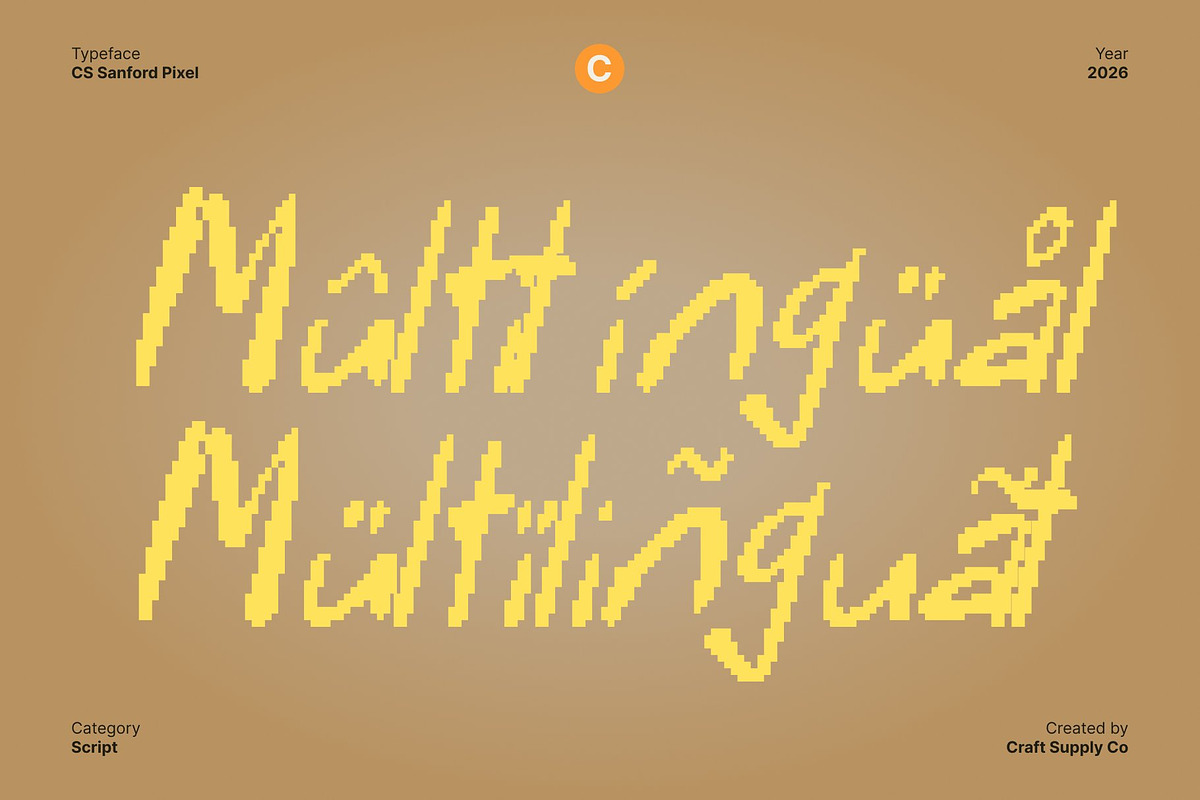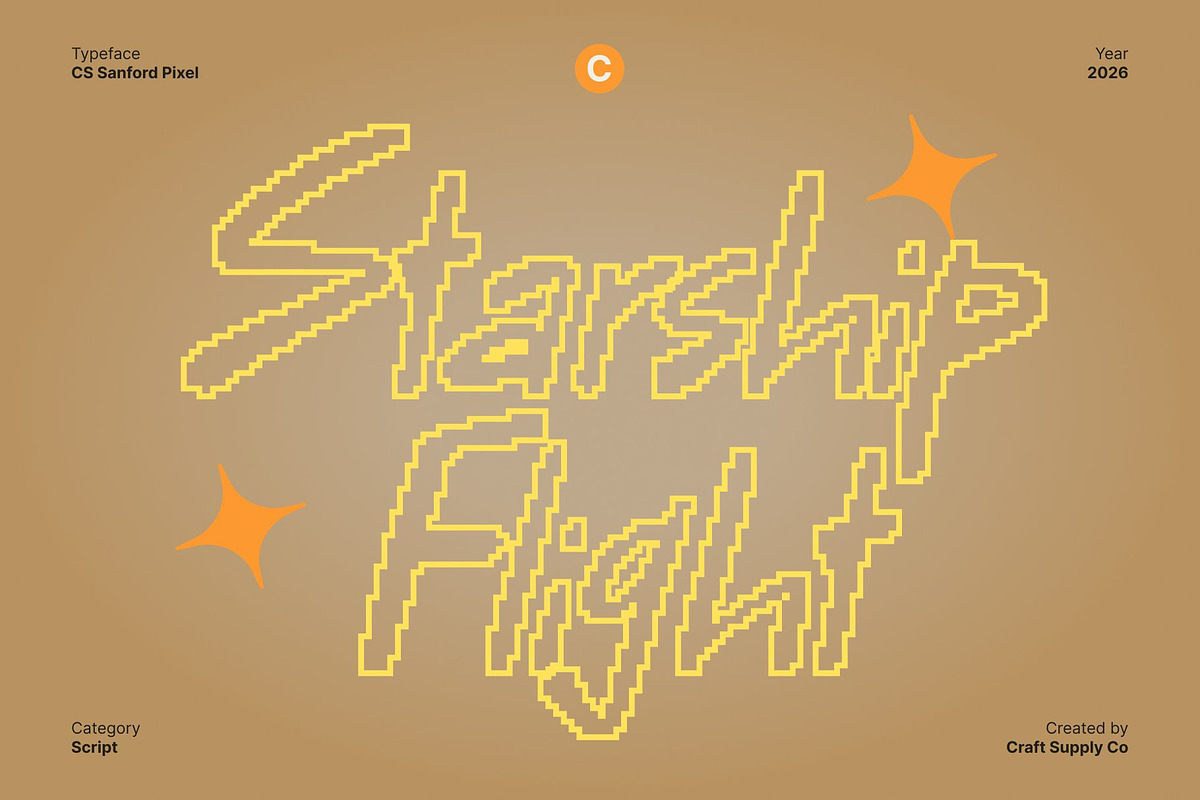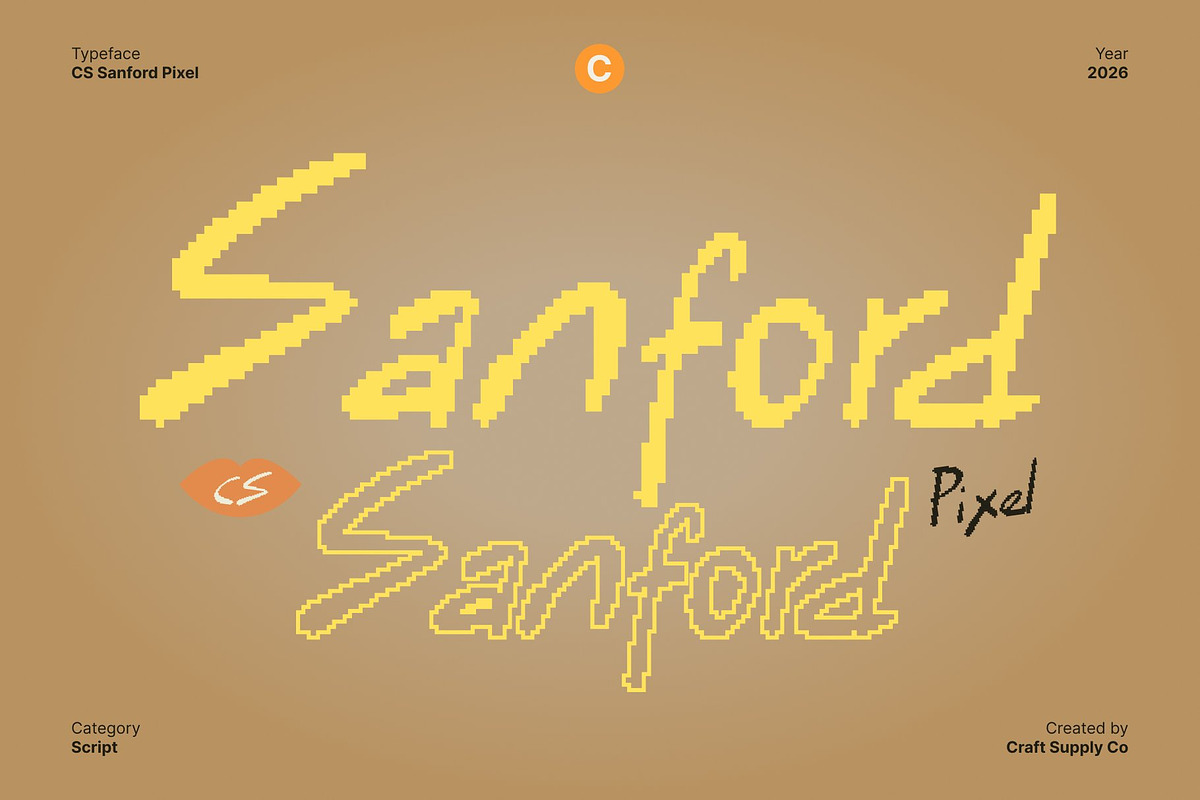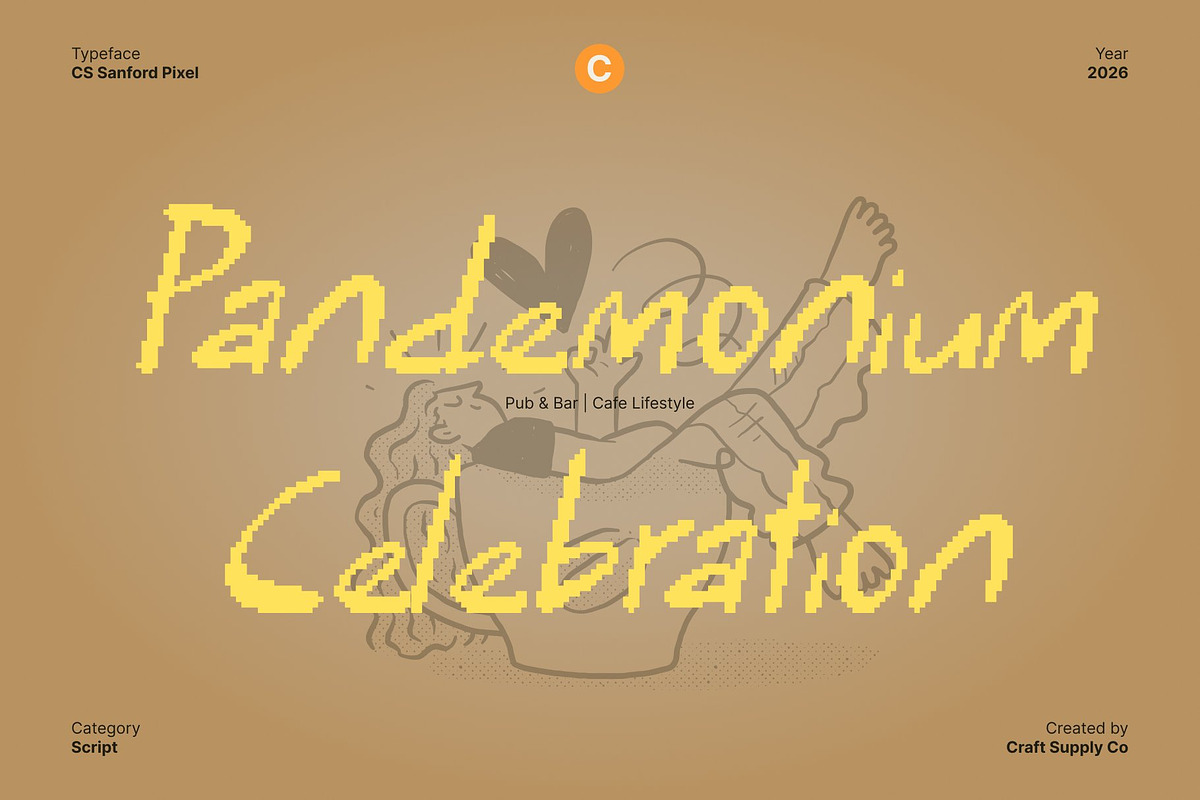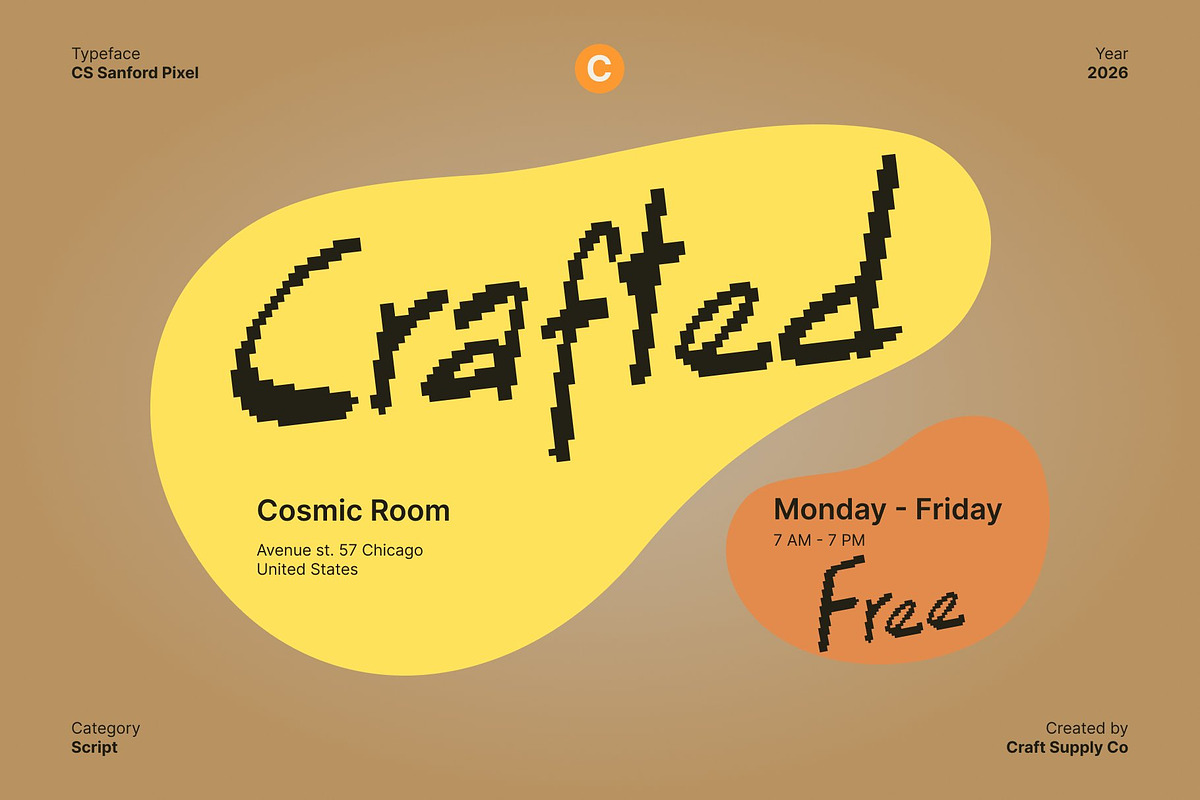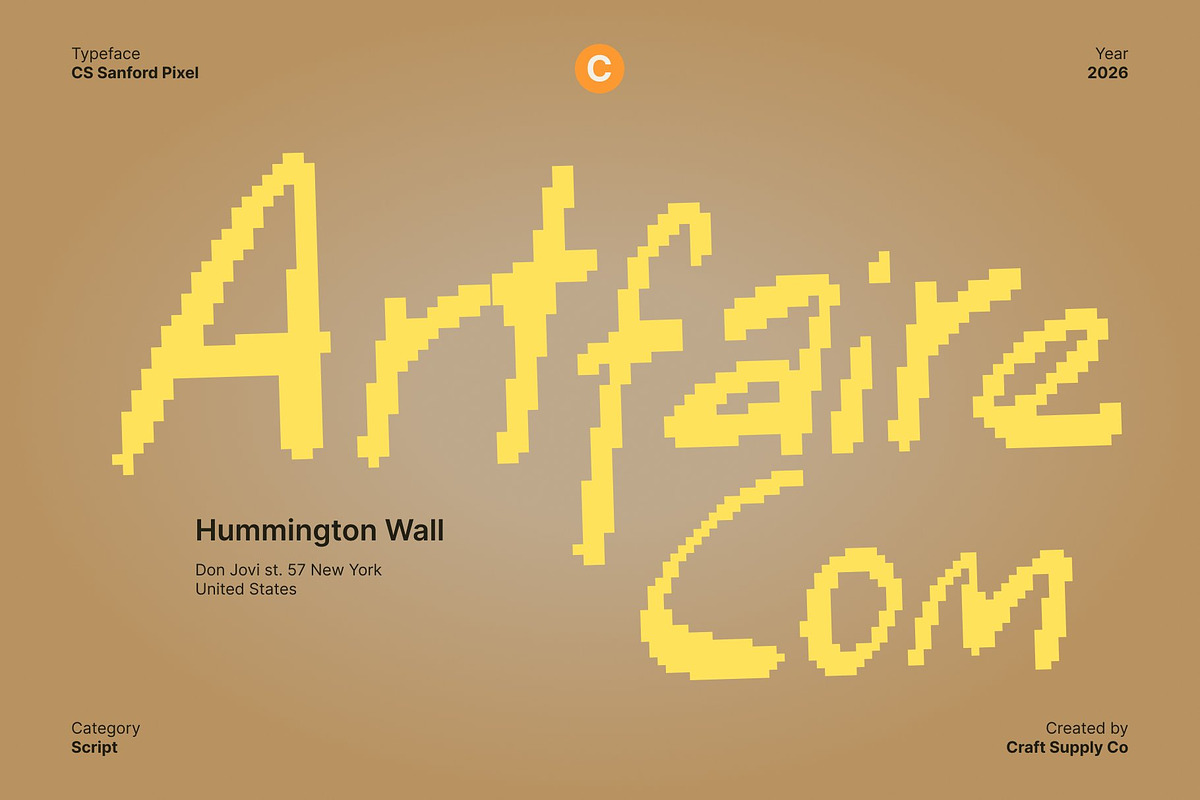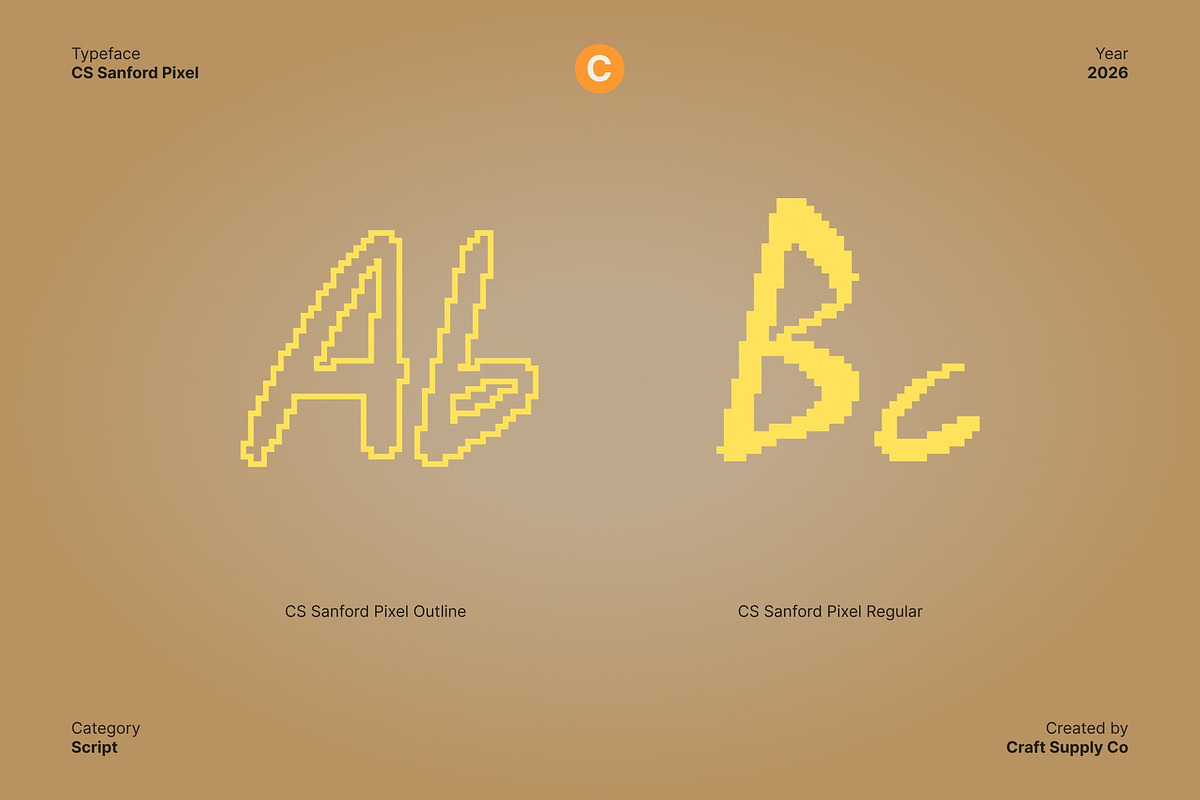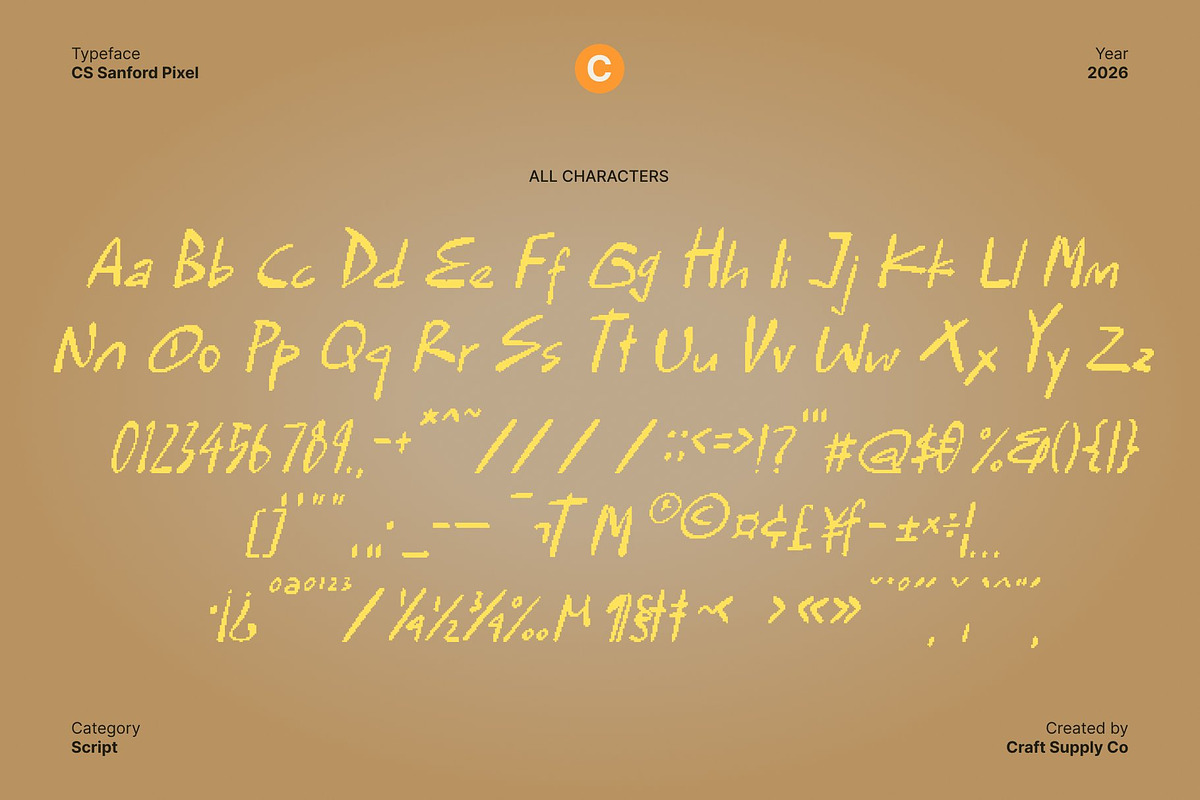
CS Sanford Pixel
CS Sanford Pixel – Ink Handwritten Font with Marker Texture and Quirky Pixel Look
Expressive Handwritten Style with Pixel Ink Personality This is a playful and expressive ink handwritten font with a clean sans serif base, reimagined through a distinctive pixel construction. Inspired by natural pen strokes and marker textures, this font captures the warmth and spontaneity of handwriting while adding a quirky pixel edge that feels fresh, digital, and eye-catching.
Natural Ink Flow Interpreted in Pixel Form The letterforms follow the organic rhythm of real handwriting, translated into structured pixel shapes. Subtle irregularities and pixel variations mimic ink pressure and marker texture, preserving a handcrafted feel within a digital grid. This fusion creates a unique balance between human expression and pixel precision.
Quirky, Warm, and Full of Digital Character This font radiates friendliness and personality. Its imperfect strokes and playful pixel details give designs an authentic, relatable tone while maintaining a modern aesthetic. The font feels casual yet confident perfect for conveying creativity, sincerity, and individuality in digital spaces.
Versatile for Digital, Retro, and Creative Projects Designed for flexibility, this font works beautifully in branding, stationery, editorials, social media graphics, journals, quotes, and retro-inspired digital designs. This font shines on screens, creative layouts, and projects that want the charm of handwritten ink with a bold pixel-art twist.
- CS Sanford Pixel Regular
- CS Sanford Pixel Outline